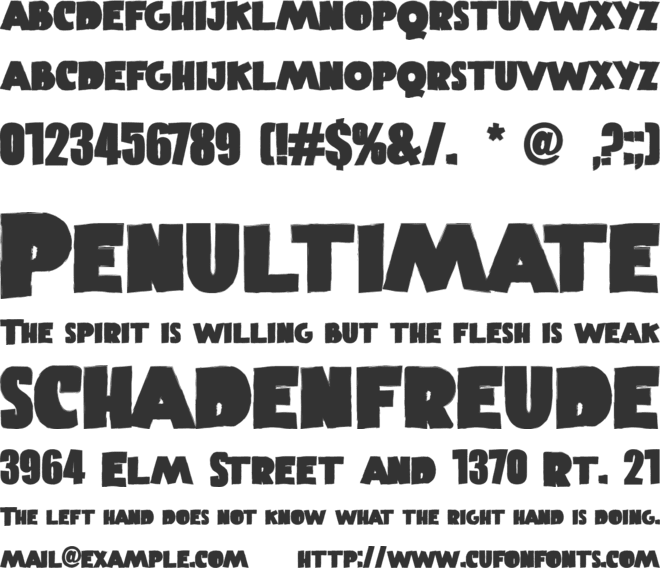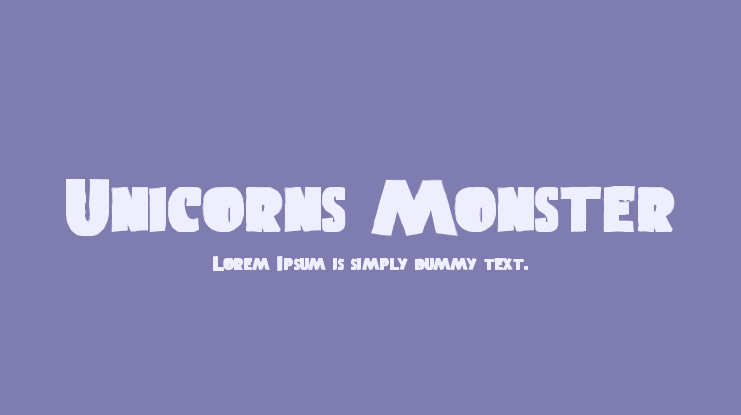
Unicorns Monster Font
Unicorns Monster is a groovy brush typeface. This font is really playful for your design, has multilingual words. I really recommended using this font for a child T-shirt, Birthday Invitation, Instagram design, etc. This font includes two file types otf and ttf.